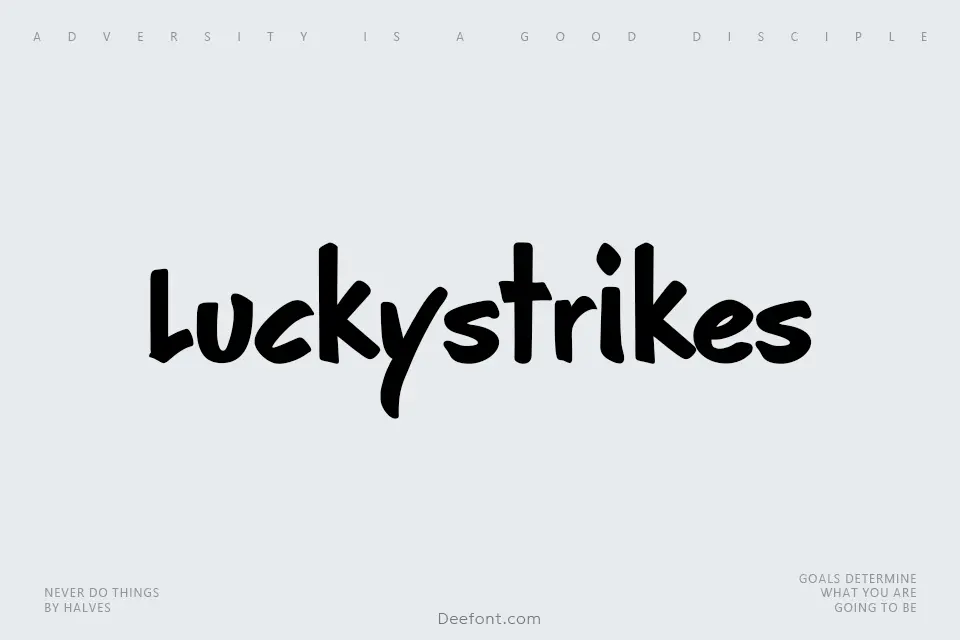
Luckystrikes Font
Luckystrikes is a bold, handwritten script display font that captures the vibrant aesthetic of 1950s advertising campaigns. Featuring thick, dynamic strokes and flowing letterforms, this typeface evokes the "Be Happy, Go Lucky!" era with its characteristic comic book-style energy. The font combines rounded, playful curves with robust weight, making it ideal for eye-catching headlines, vintage-inspired poster design, nostalgic branding, packaging labels, and retro signage. With its strong historical reference to mid-century American commercial art and advertising typography, Luckystrikes delivers authentic vintage charm perfect for logo design, editorial layouts, and any project demanding a spirited, old-school display aesthetic.